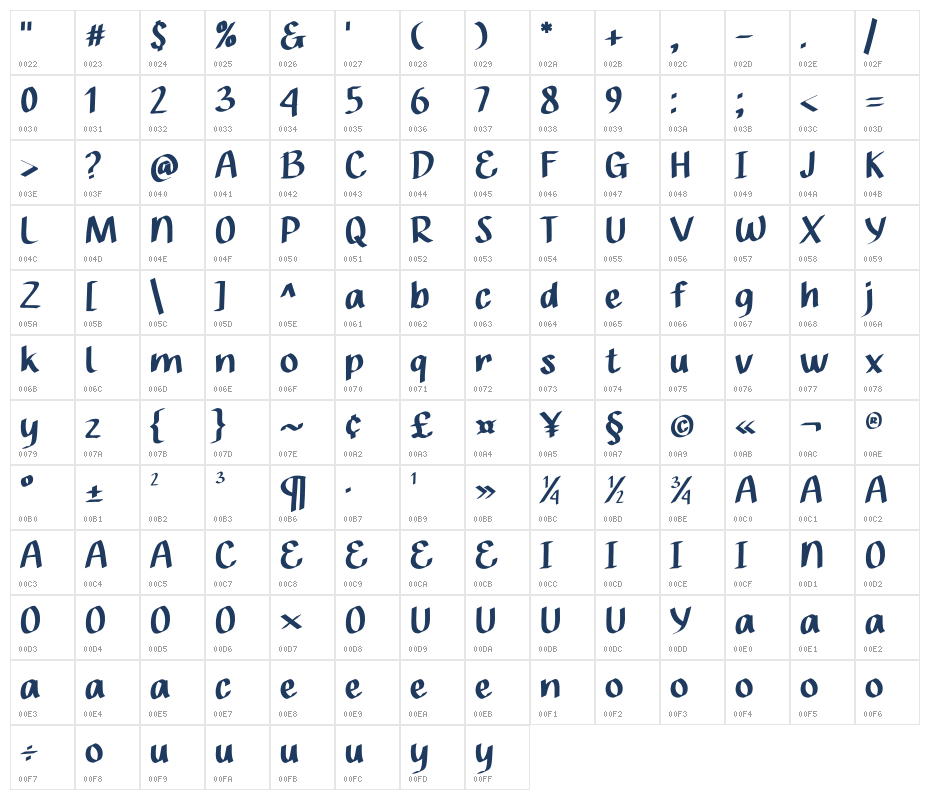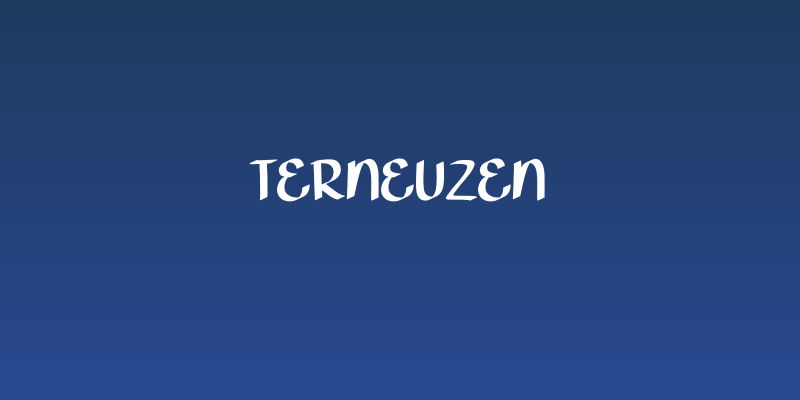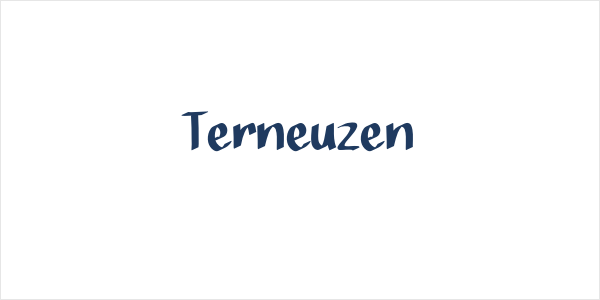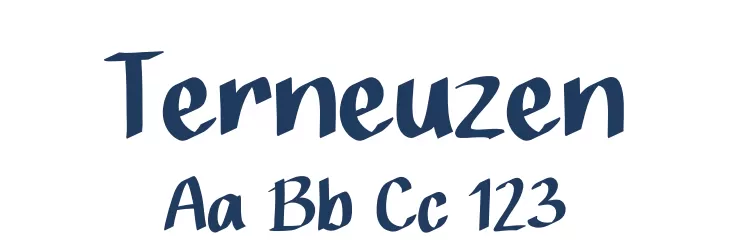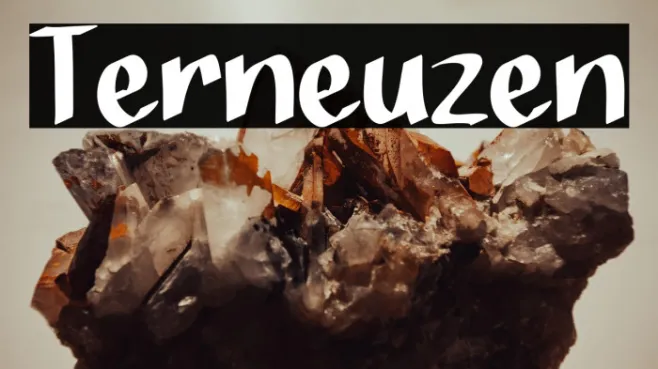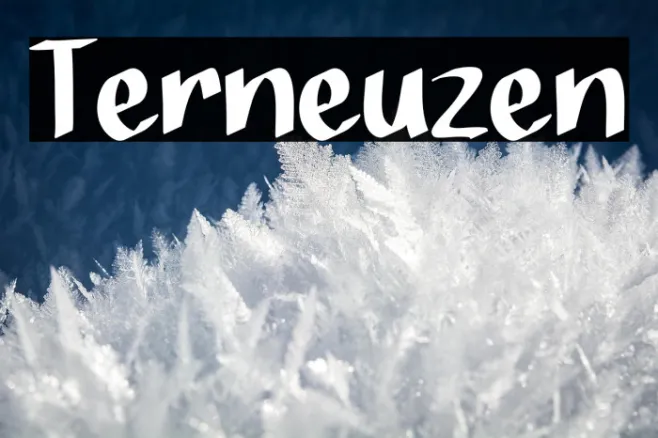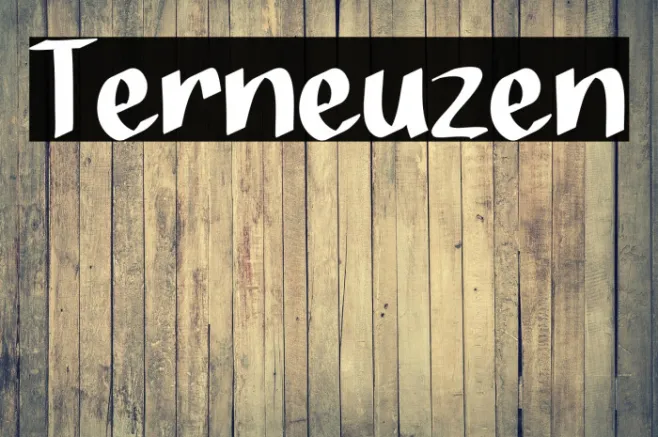
Terneuzen Font
Terneuzen Description
A playful, casual handwritten style font with a slightly irregular, brush-like appearance.
| Overall Style | Casual, Playful, Informal |